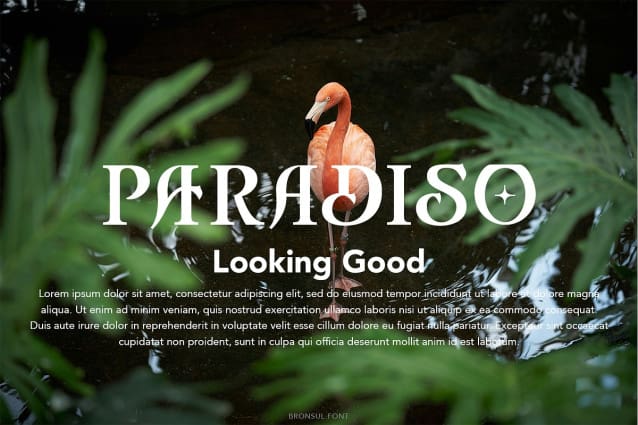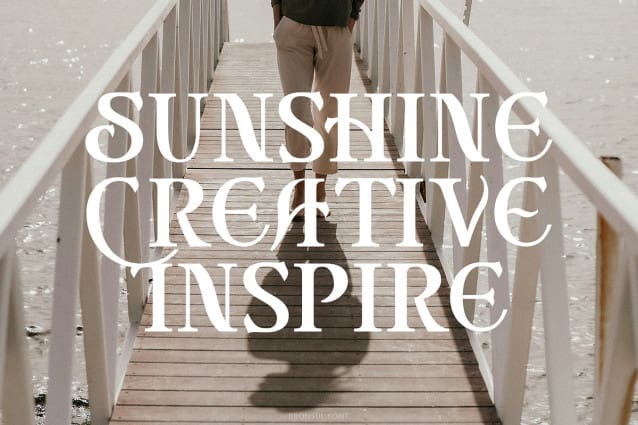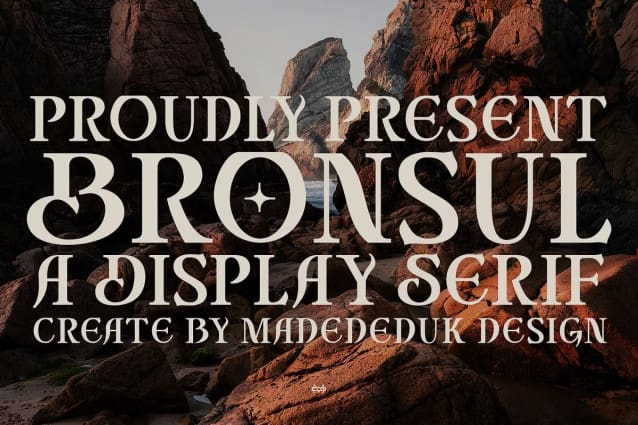
Bronsul Font
Bronsul Font is a serif display font, simplistic, unique retro look high contrast serif that is at home in high-end fashion and cultural environments you can explore and combine. use this font for any branding, product packaging, headline, invitation, quotes, t-shirt, label, poster, logo etc.